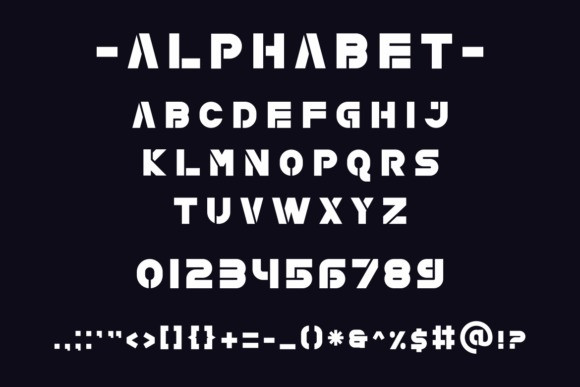
Dorimous Font
Dorimous Font is a futuristic and trendy font. No matter the topic, this font will be an excellent choice for your projects, as it has the potential to enhance any deisgn.